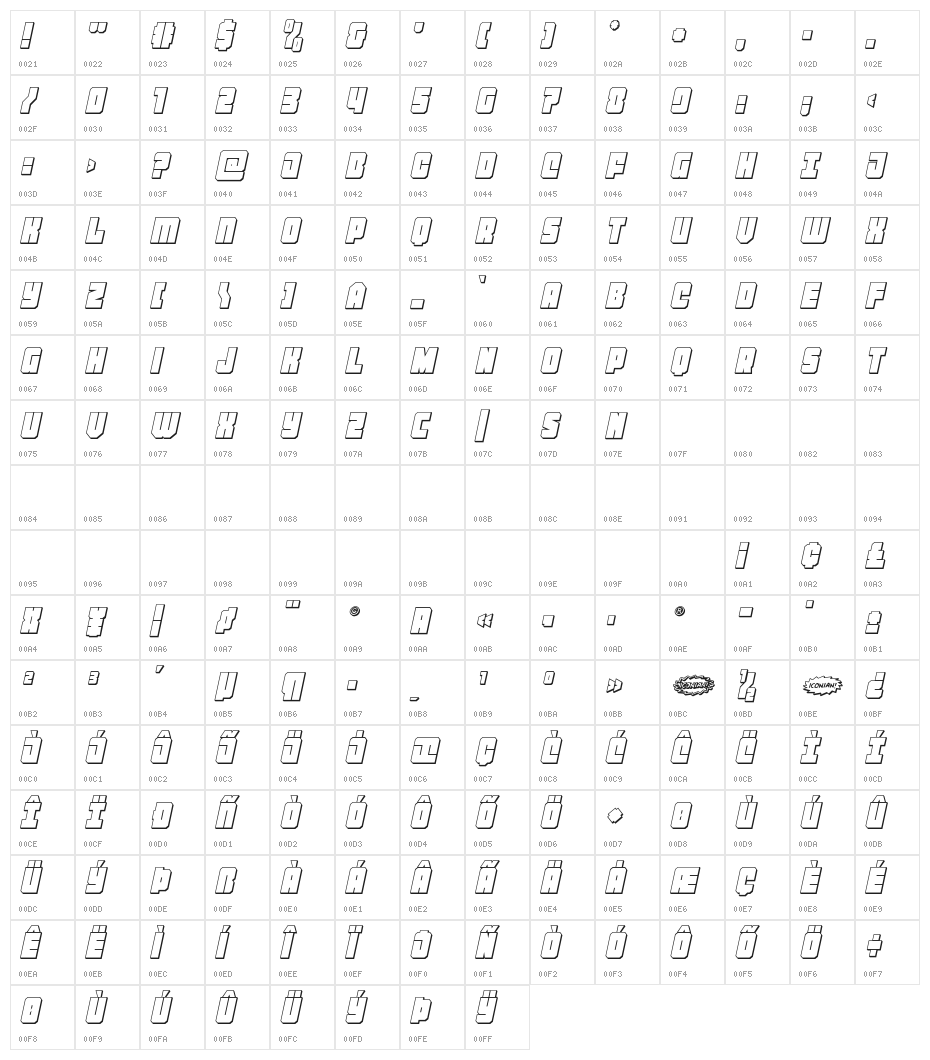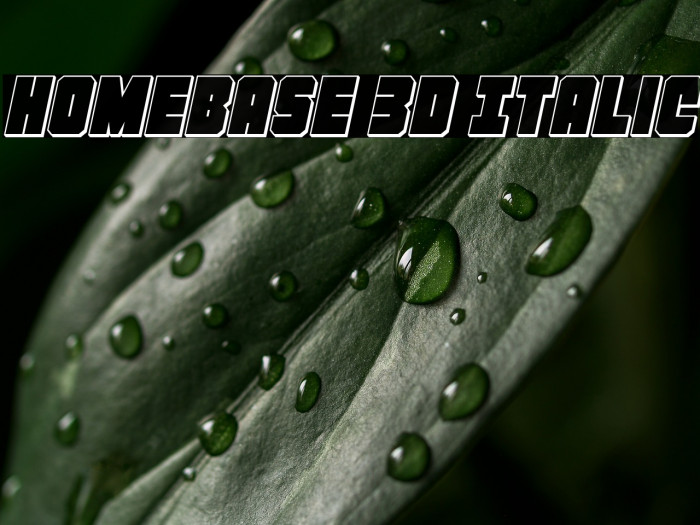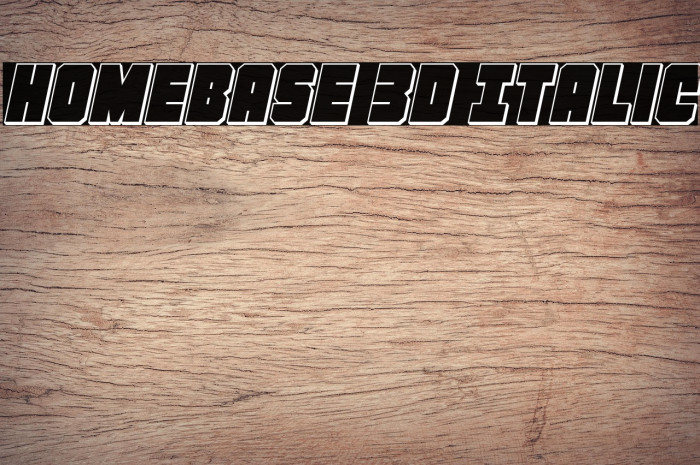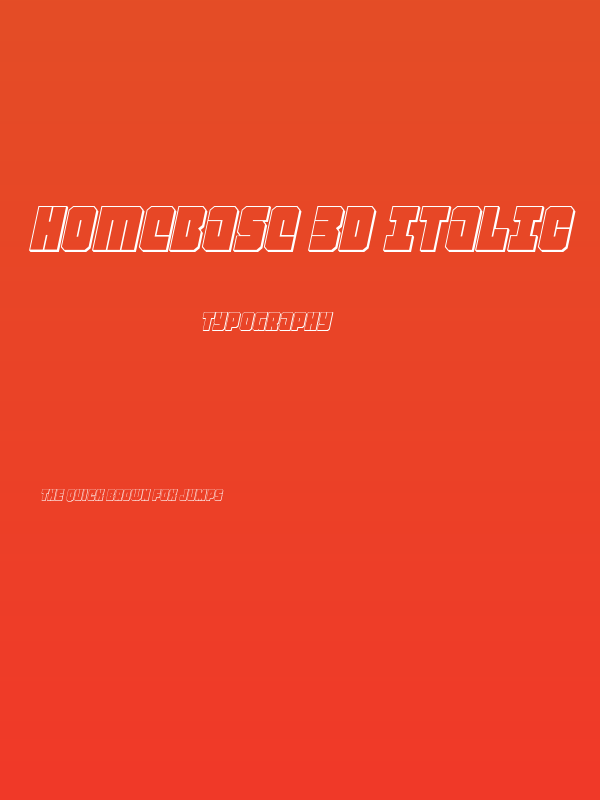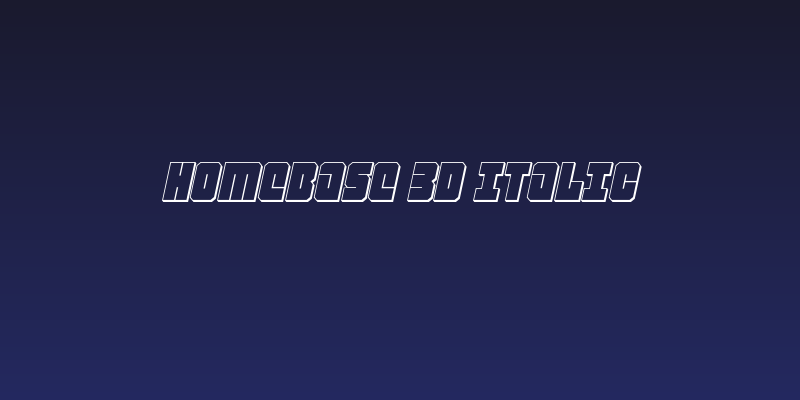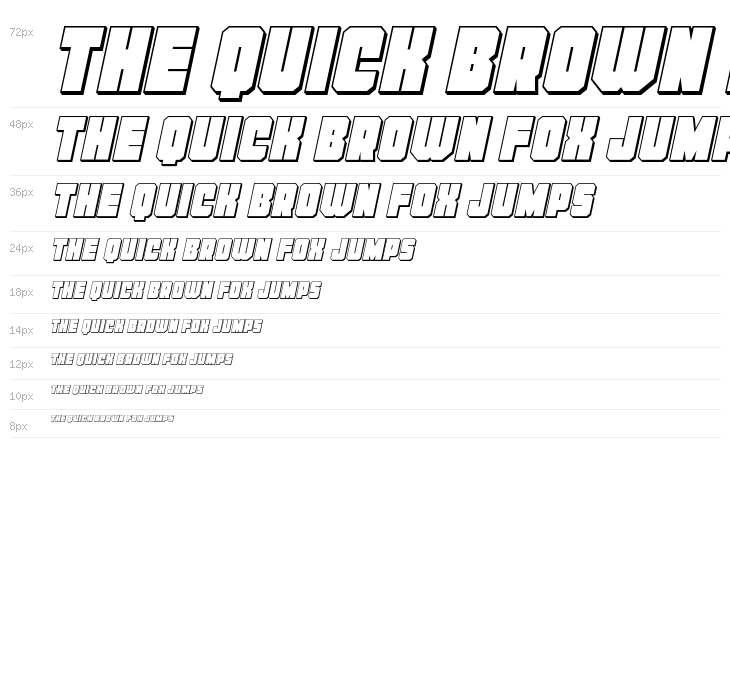
Homebase 3D Italic Font
Homebase 3D Italic Description
This font features a bold, three-dimensional style with a distinct italic slant, giving it a dynamic and modern appearance. The characters are blocky and geometric, with sharp edges and a consistent stroke width that enhances the 3D effect. The uppercase and lowercase letters maintain a uniform style, while the numerals and special characters integrate seamlessly with the overall design. The font's boldness and unique structure make it stand out, ideal for projects that require a strong visual impact.
Proposed ProjectsIdeal for video game titles, posters, logos, and any design requiring a strong, impactful presence.